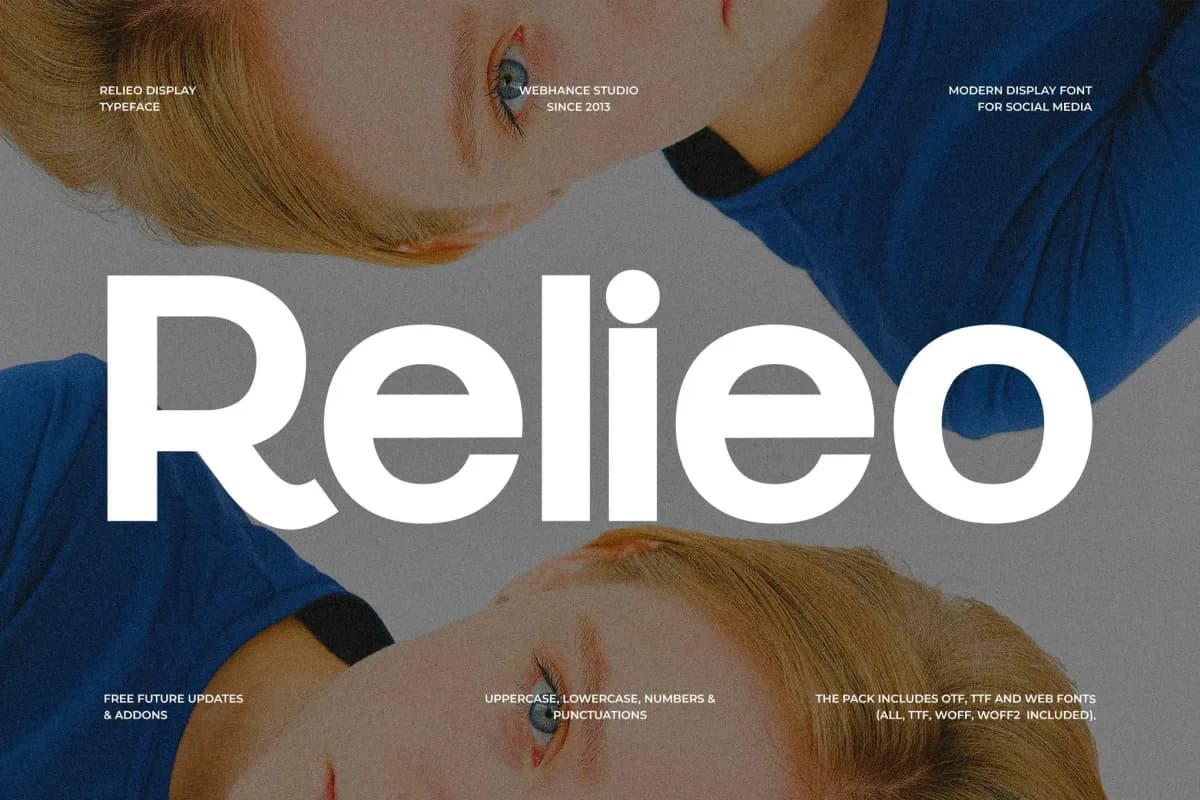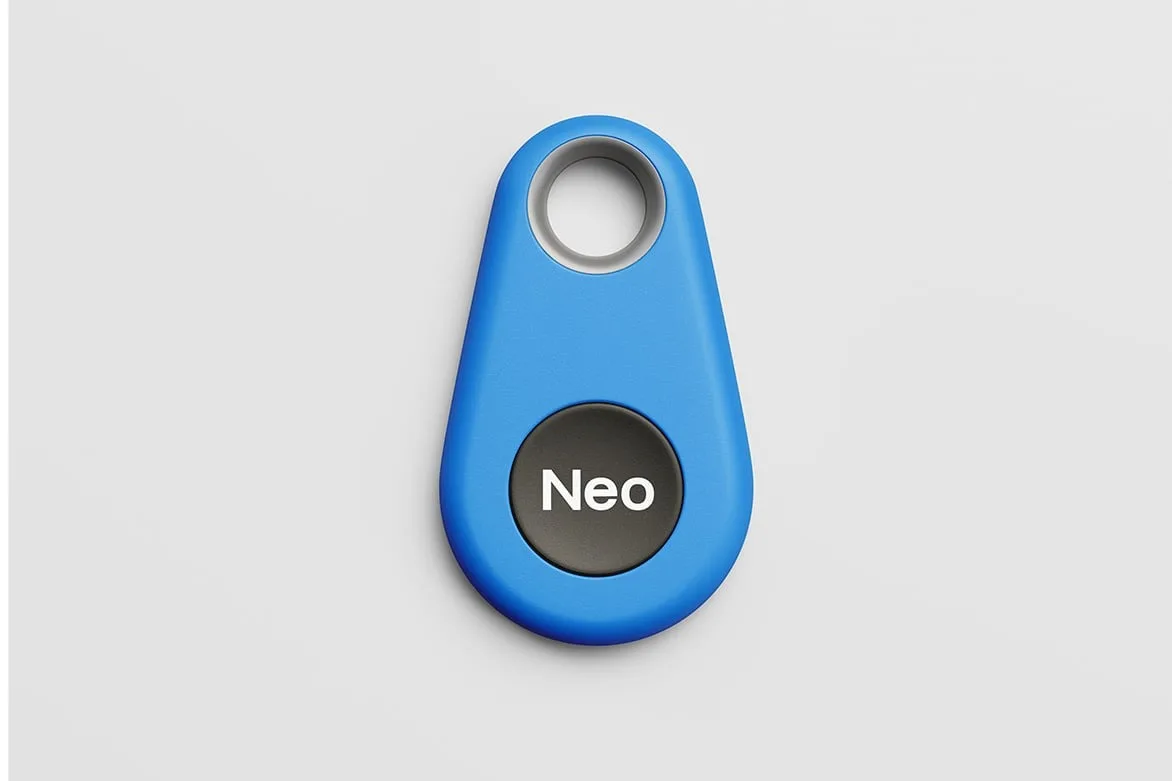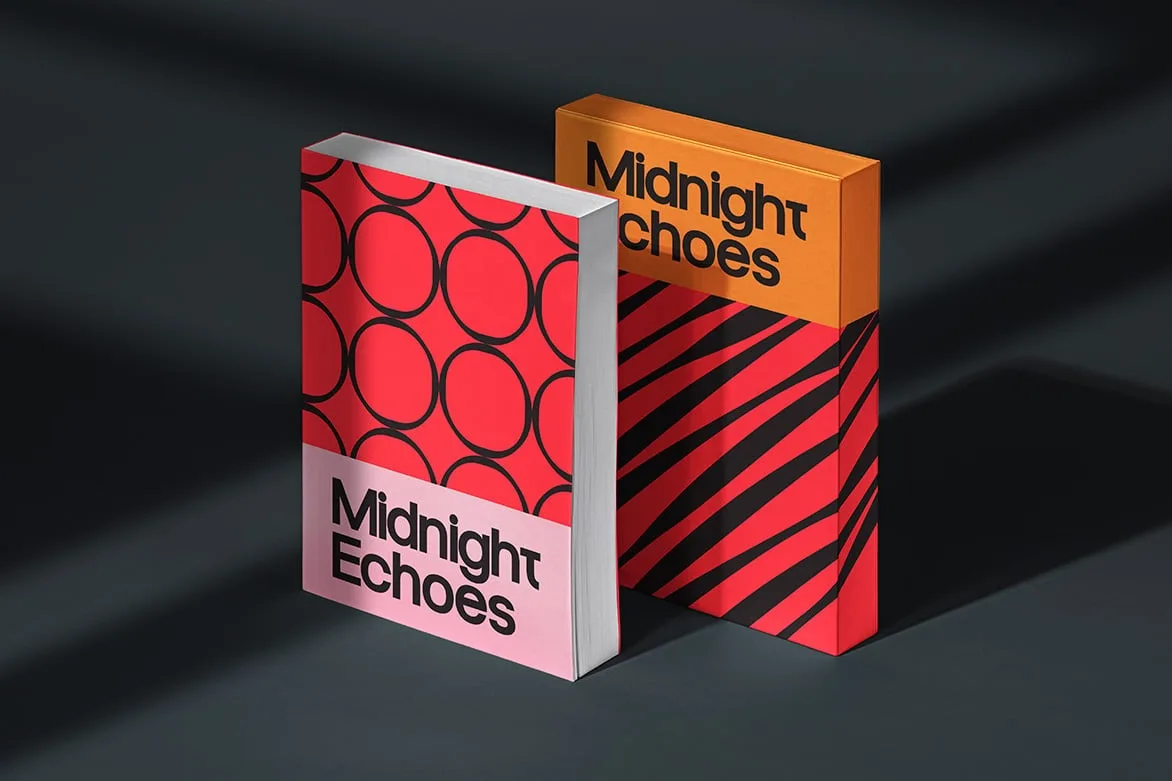
Relieo
Relieo is a modern sans-serif display font that embodies minimalism and elegance. Ideal for branding projects, it offers a clean visual identity that enhances logos, social media graphics, and promotional materials. With its unique character, Relieo stands out in various design applications.
Design Traits
- Geometric shapes provide a balanced appearance.
- Generous spacing enhances readability.
- A contemporary tone suits a variety of projects.
- Clear letterforms ensure easy recognition at all sizes.
Best Use Cases
- Branding: Perfect for logos and identity design.
- Social Media: Ideal for Instagram posts and thumbnails.
- Marketing: Effective for flyers and posters.
- Video Titles: Great for engaging video overlays.
- Web Design: Suitable for website headers and banners.
Why Designers Choose Relieo
- Versatile for various design needs.
- Minimalist aesthetic aligns with modern trends.
- Enhances visual impact without overwhelming.
- Easy to pair with other typefaces.
- Quick to implement in any project.